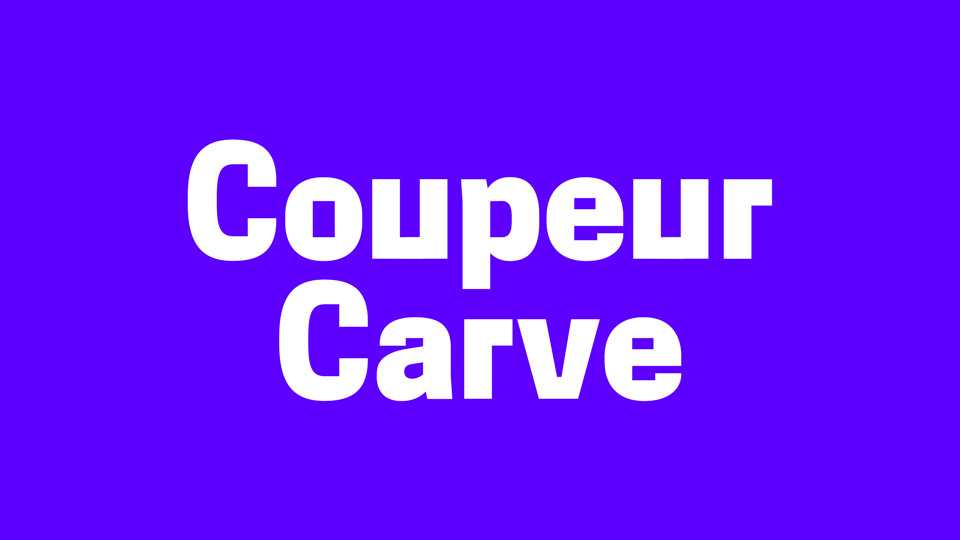
Download Coupeur Carve typeface, a creative display font family in three weights based on the greatly designed Cooper Hewitt. Coupeur Carve has carved angles into the round letters, some strictly geometrical.
Designer: Vincent Ricard